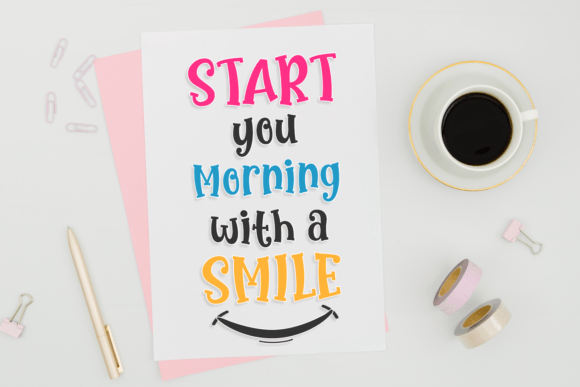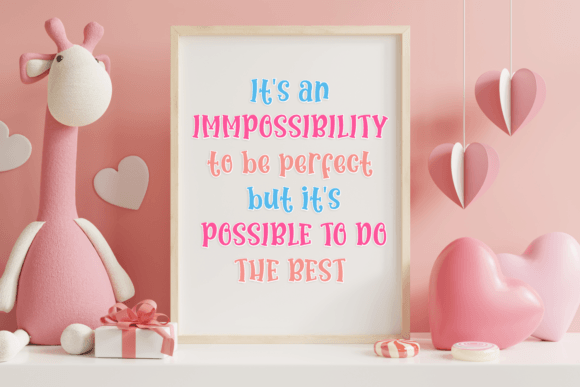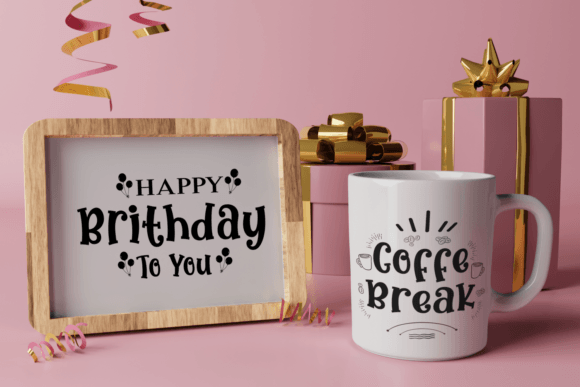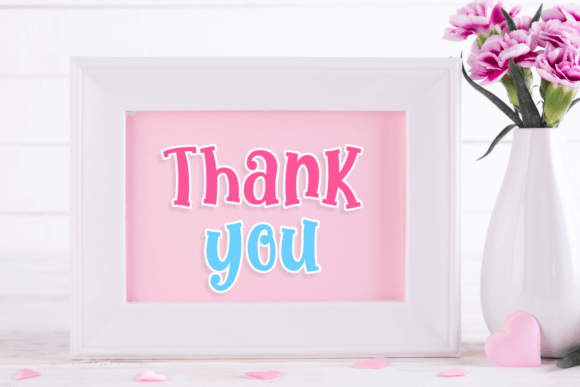
Unleash Your Creativity with the After Dream Font
Have you ever stared at a blank page, feeling like your ideas are stuck in neutral? You know, that moment when the cursor blinks at you, daring you to take the first step? It’s those moments that we need a little spark to ignite our creativity and get our imagination flowing.
That’s where the After Dream Font comes in – a delightful display font designed to add a touch of playfulness and charm to your designs. With quirky letterforms and whimsical details, this font is the perfect tool to bring your creative vision to life. Whether you’re a seasoned designer or just starting out, the After Dream Font is an invaluable addition to your toolkit, allowing you to tap into your inner child and create something truly special.
Key Features of After Dream Font
- Character Count: The font contains a wide range of characters, including Latin, Cyrillic, and Greek alphabets, as well as various symbols and punctuation marks.
- Font Size: The font is available in a single weight, but it can be easily scaled to various sizes without losing its unique characteristics.
- Resolution: The font is designed to be highly legible at high resolutions, making it suitable for use in digital and print media.
- Unique Characteristics: After Dream Font features a dreamy, ethereal quality, with subtle flourishes and decorative elements that add a touch of whimsy to any text.
After Dream Font Review
Overall, I have mixed feelings about the After Dream Font. On one hand, I appreciate its unique and whimsical design. ✨ The font’s irregular shape and varying line widths give it a hand-drawn feel that can add a touch of personality to text-based designs.
One of the standout features of this font is its versatility. ✨ It can be used in a variety of contexts, from title fonts to body text, and can even be used to create a sense of movement and energy. ✨ The font’s quirky nature makes it a great choice for designers looking to add some visual interest to their work.
- ⚠️ The font can be difficult to read in smaller sizes, which may limit its use in certain applications.
- ⚠️ The font’s irregular shape can make it challenging to pair with other fonts, which may require some experimentation to find a suitable match.
Overall, I think the After Dream Font is a unique and interesting choice for designers looking to add some personality to their work. While it may have some limitations, its versatility and quirky nature make it a great option for certain projects.
Getting the Most Out of After Dream Font
For optimal results, use After Dream Font in conjunction with bold or italic text to create visual contrast. You can also experiment with different font sizes and colors to enhance the overall design.
After Dream Font is ideal for creative projects, such as:
– Artistic typography
– Handmade designs
– Whimsical branding
– Fantasy-inspired illustrations